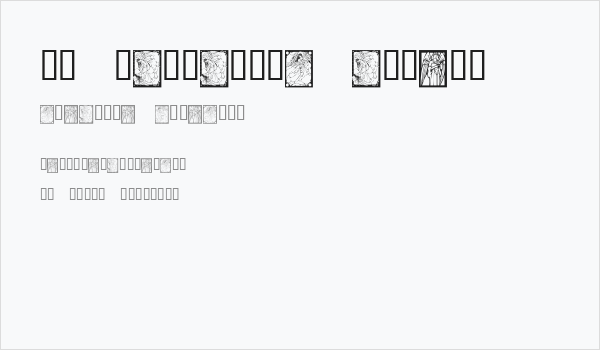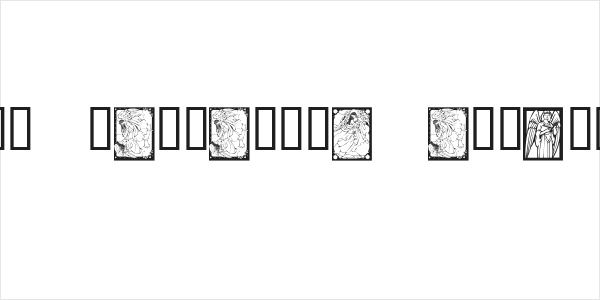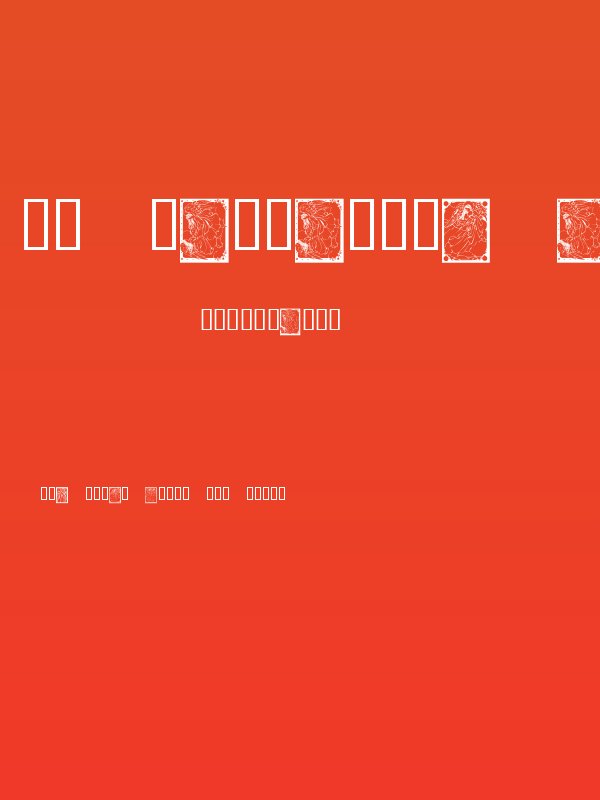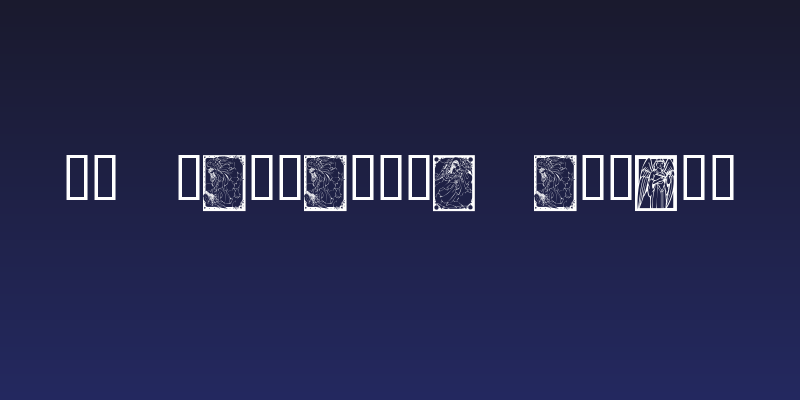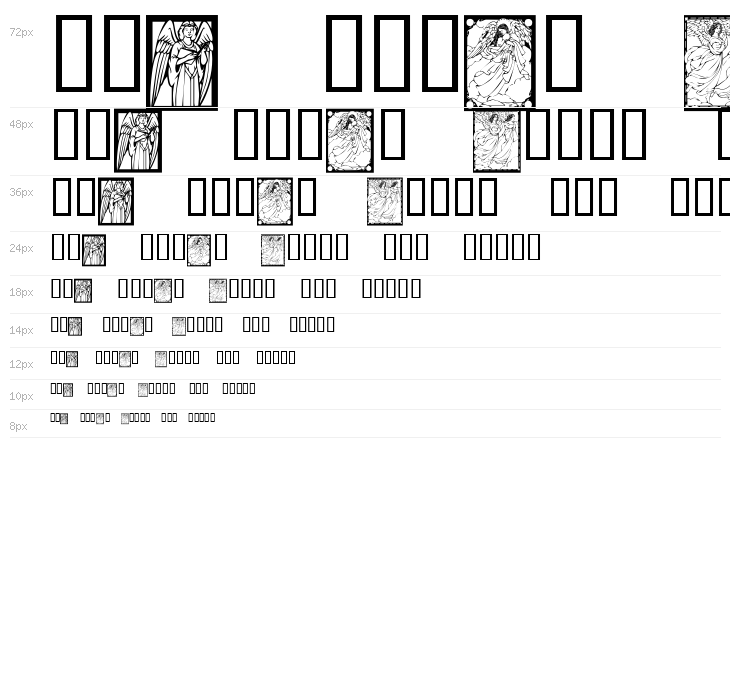
KR Fantastic Angels Font
KR Fantastic Angels Description
This is not a traditional font but rather a collection of decorative illustrations featuring angelic figures. Each character space is filled with intricate, artistic depictions of angels, showcasing detailed line work and ornamental designs. The images are framed within rectangular borders, giving them a structured appearance. This set is more akin to a series of pictorial representations rather than typographic characters, making it suitable for decorative purposes rather than textual communication.
| Use Case | Decorative elements, Artistic designs |
| Proposed Projects | Ideal for use in artistic projects, greeting cards, decorative posters, or any design requiring a celestial or ethereal theme. |